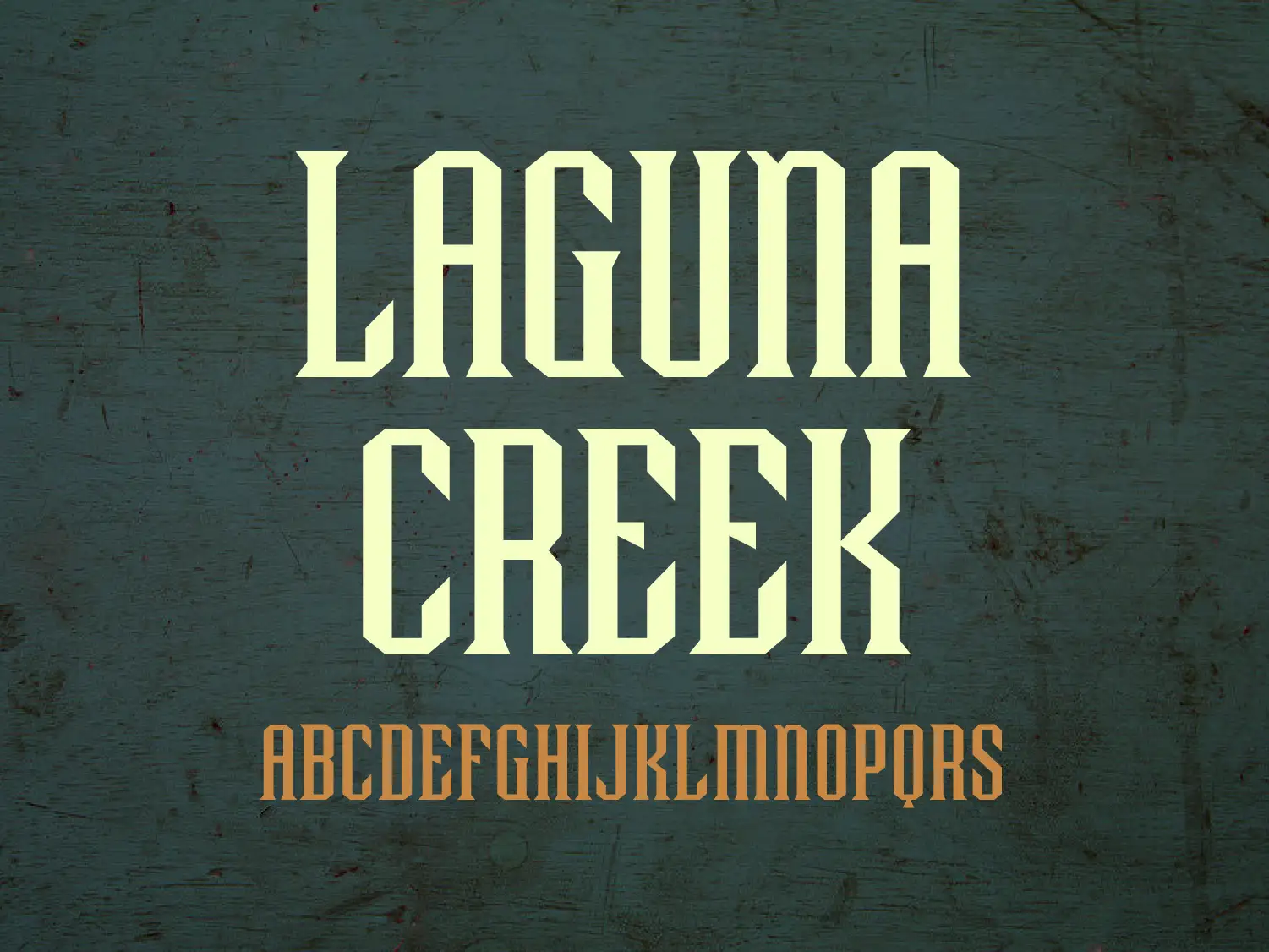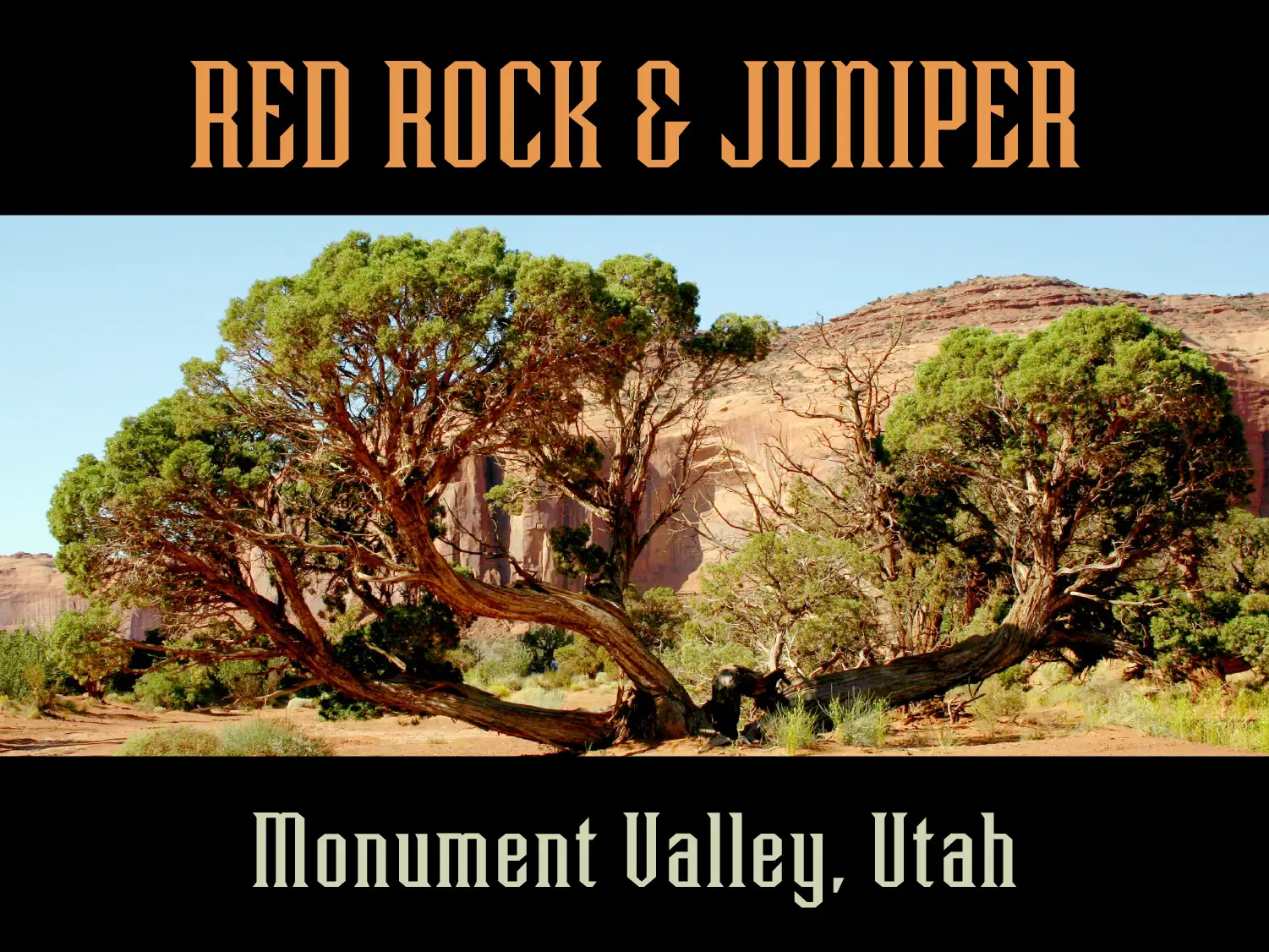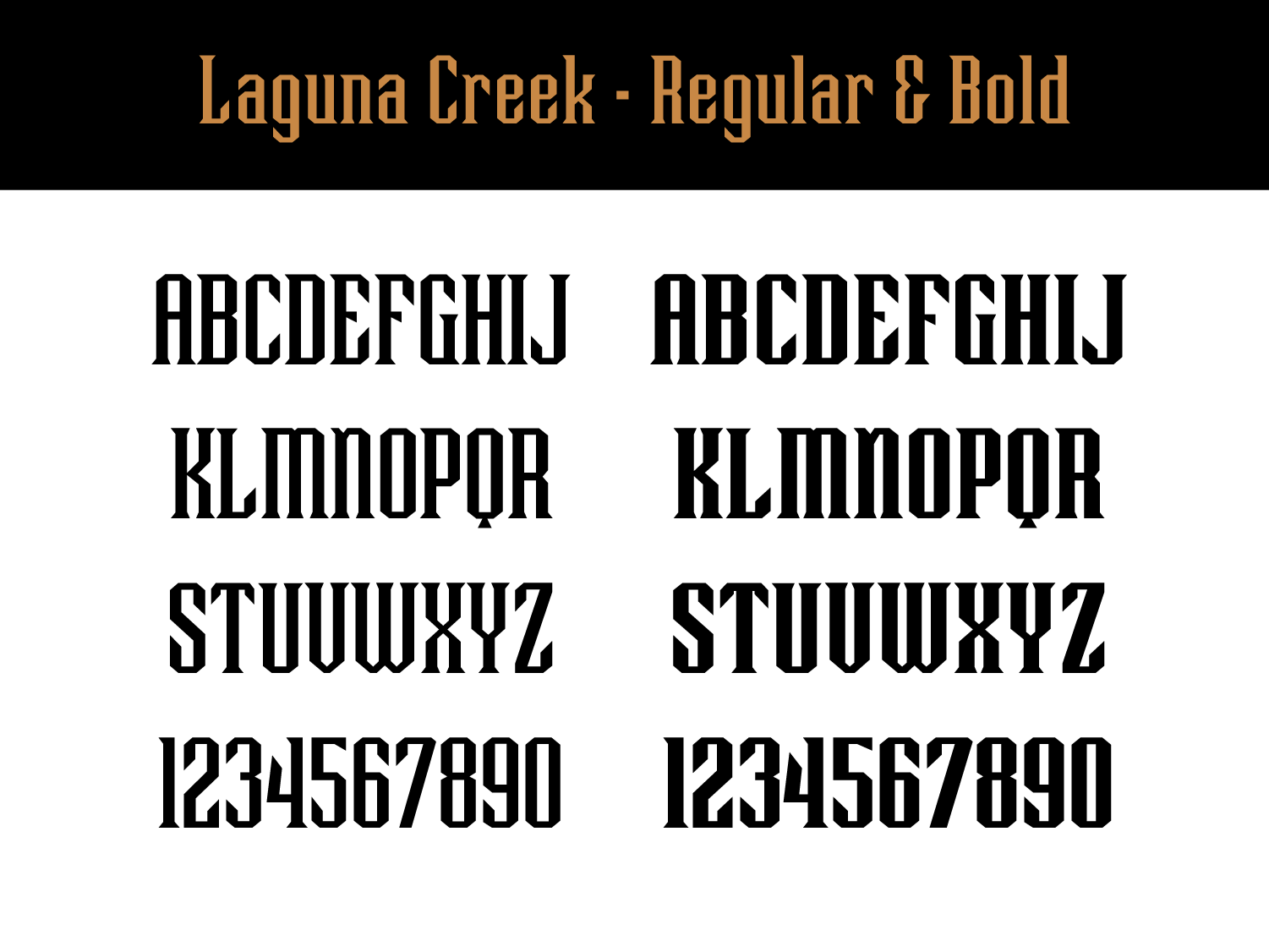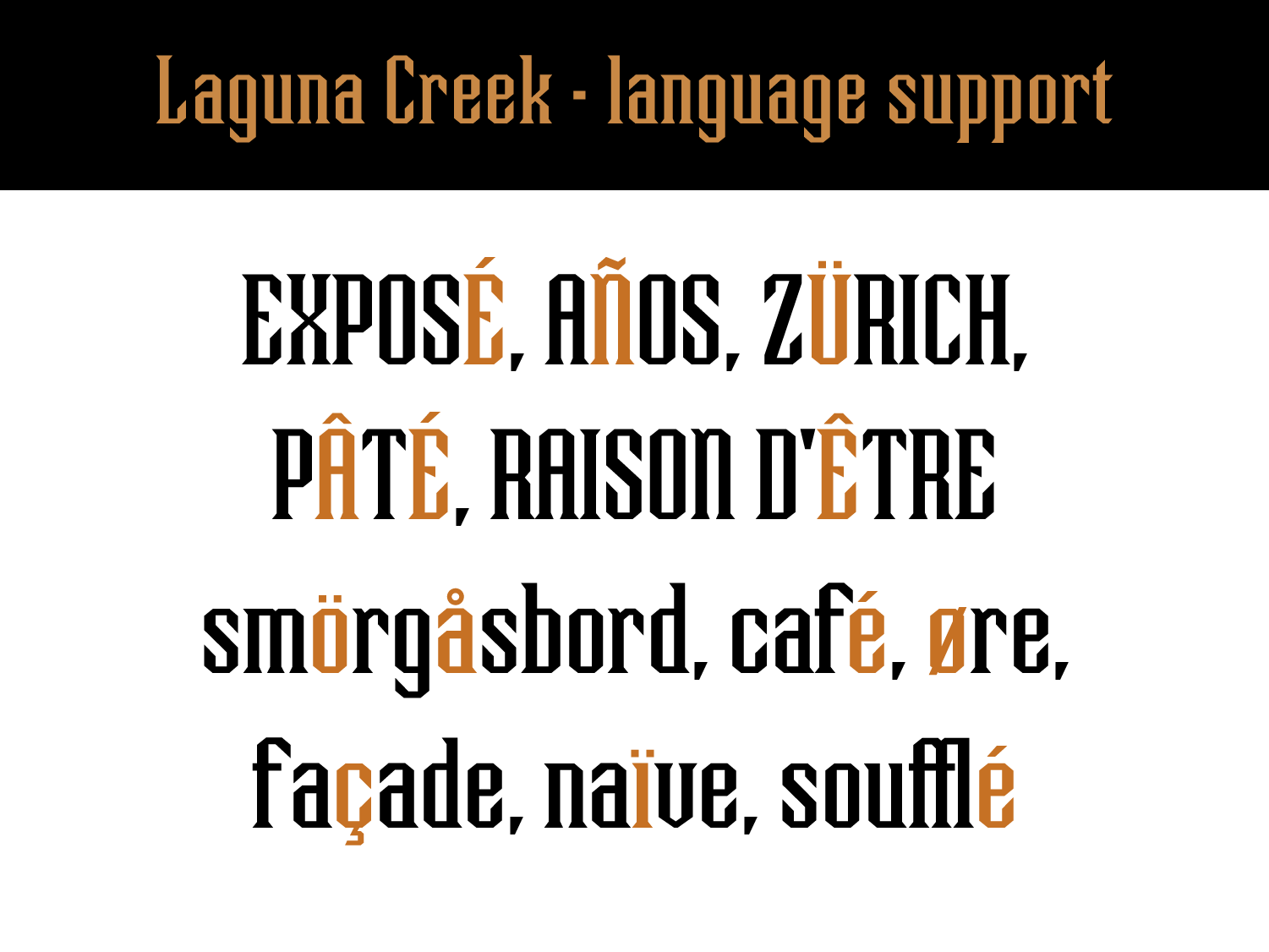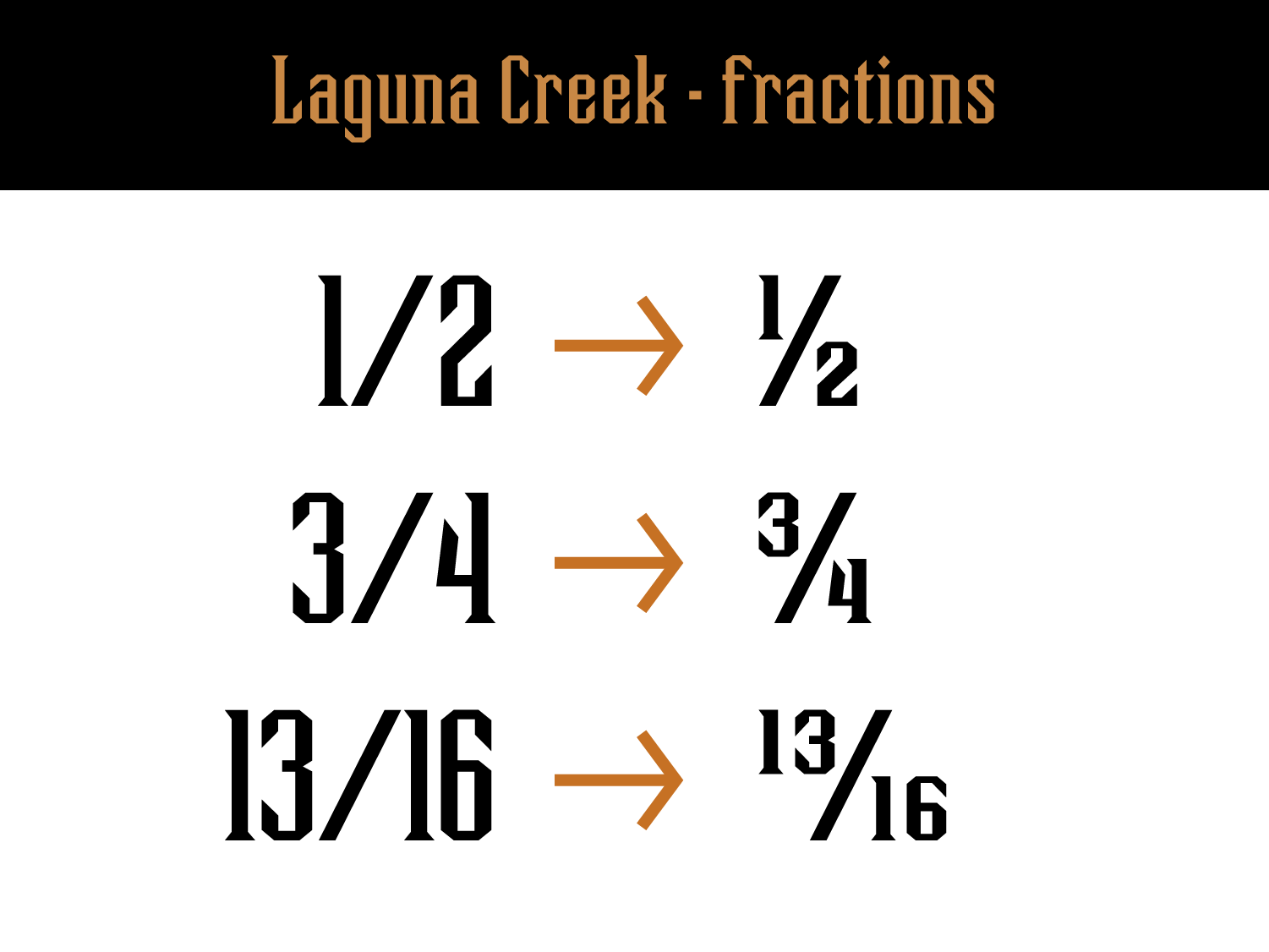
Laguna Creek is a display font with straight lines and sharp angled serifs in a tall, condensed style. It is inspired by antique shipping posters from California in the 1850s. It has a southwestern look, but the sharp angles give it a place in the modern world. It shines in all caps. Its lowercase gives it flexibility. It is best suited to larger sizes and shorter words. It’s perfect for headlines, t-shirts, tattoos, posters, magazines, street wear, etc. The font has two weights and includes a full set of characters from a-z, and A-Z, as well as OpenType features, multi-lingual support, currency figures, numerals, and punctuation.